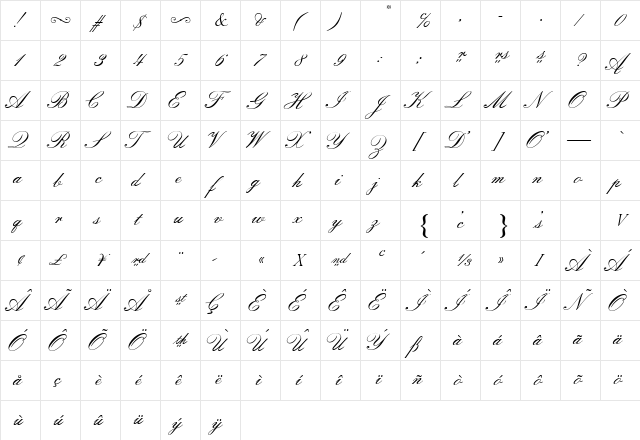
Florentine At Script II Regular
Design Context for Florentine At Script II Typeface
Florentine At Script II flows with the natural rhythm of handwritten lettering, making it ideal for designs that call for warmth and personal expression.
Font Pairing: Combine Florentine At Script II with a simple geometric sans for maximum contrast — the tension between flowing curves and clean structure is a classic typographic pairing.
Pro Tip: Pair Florentine At Script II with a clean sans-serif for supporting text. The contrast between fluid script and geometric structure creates an elegant typographic hierarchy.